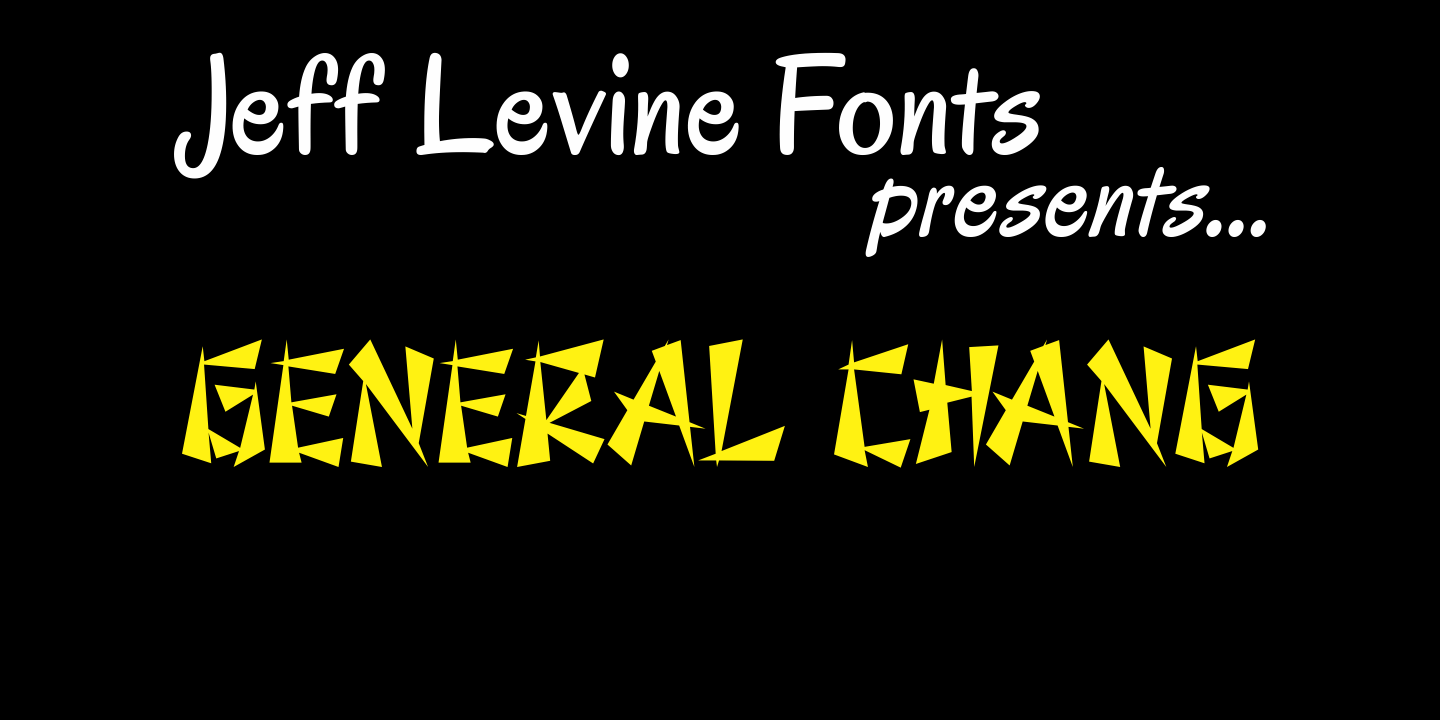
General Chang
General Chang JNL is one of a number of fonts redrawn by Jeff Levine from the creative output of the late Alf R. Becker. Becker's alphabets were a monthly feature of Signs of the Times Magazine from the 1930s through the 1950s. Thanks to Tod Swormstedt of ST Media (who also is the curator of the American Sign Museum in Cincinnati, Ohio) for the resource material.